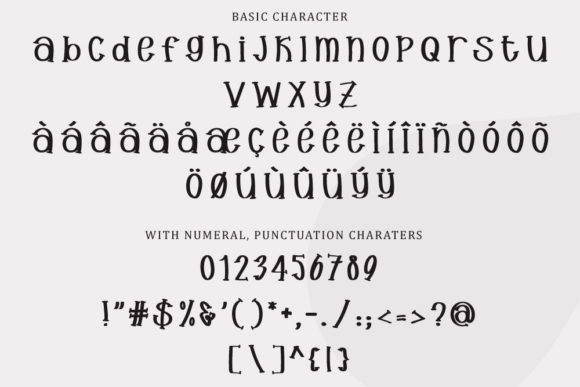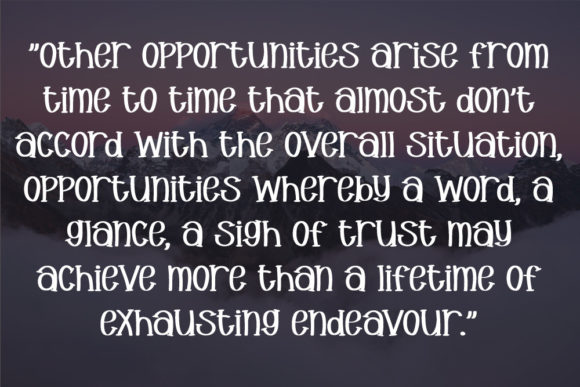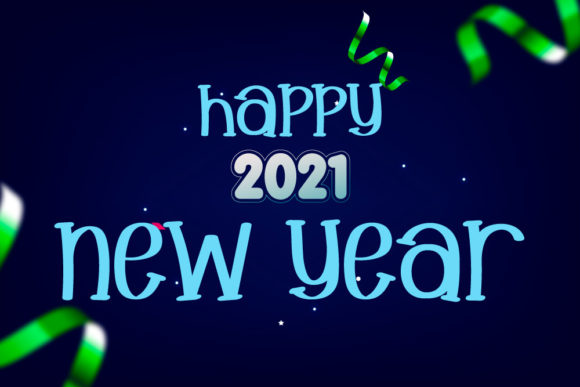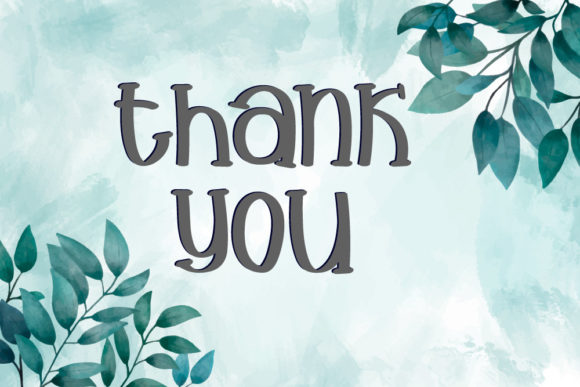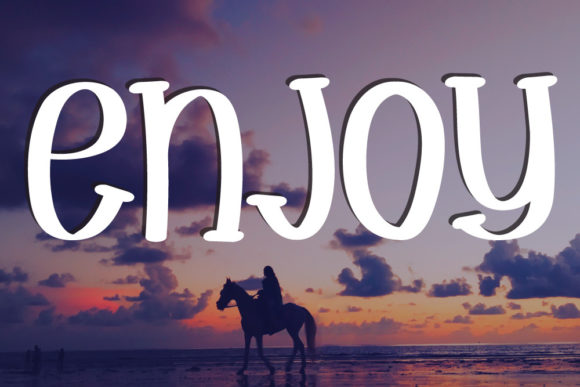
Introduction to Oliviaslab Font
Have you ever been working on a creative project and felt like something was missing? A design element that would take it from good to great? I know I have. For me, it was a font that would add a relaxed, laid-back vibe to my design. And that’s where Oliviaslab Font comes in.
This casual and fun slab serif font is perfect for designers who want to add a touch of personality to their work. With its informal style and trendy vibe, Oliviaslab Font is a high-quality design resource that’s sure to elevate any creative project. Whether you’re working on a free download or a commercial project, this font is a valuable addition to your design arsenal.
Key Features of Oliviaslab Font
- High-quality design resource suitable for creative projects and personal use.
- Perfect for use in graphic design, digital art, and other creative endeavors.
Honest Review: Oliviaslab Font
As a designer, I’m always on the lookout for high-quality fonts to elevate my creative projects. Recently, I came across the Oliviaslab Font, and I was impressed by its unique characteristics.
What works well: ✨ The Oliviaslab Font is available for free download, making it an excellent resource for designers on a budget. Its modern design and clean lines make it perfect for a variety of creative projects, from digital designs to print materials. The font also features a transparent background, which allows for seamless integration with any design.
What doesn’t work well: ⚠️ While the Oliviaslab Font is a great addition to any design resource collection, it may not be suitable for projects that require a more traditional or classic font style. Additionally, the font’s unique design may not be compatible with all operating systems or software.
- Modern and clean lines
Overall, I’m impressed with the Oliviaslab Font’s unique design and versatility. While it may have some limitations, it’s an excellent resource for designers looking for a modern and creative font to elevate their projects.
Getting the Most Out of Oliviaslab Font
To get the most out of Oliviaslab Font, experiment with different font sizes, colors, and combinations to achieve the desired visual effect. This font is particularly useful for creating visually appealing headings and titles.
Oliviaslab Font is commonly used in design projects requiring a clean and modern look. It’s ideal for creating logos, business cards, and marketing materials, as well as for adding a touch of sophistication to presentations and documents.